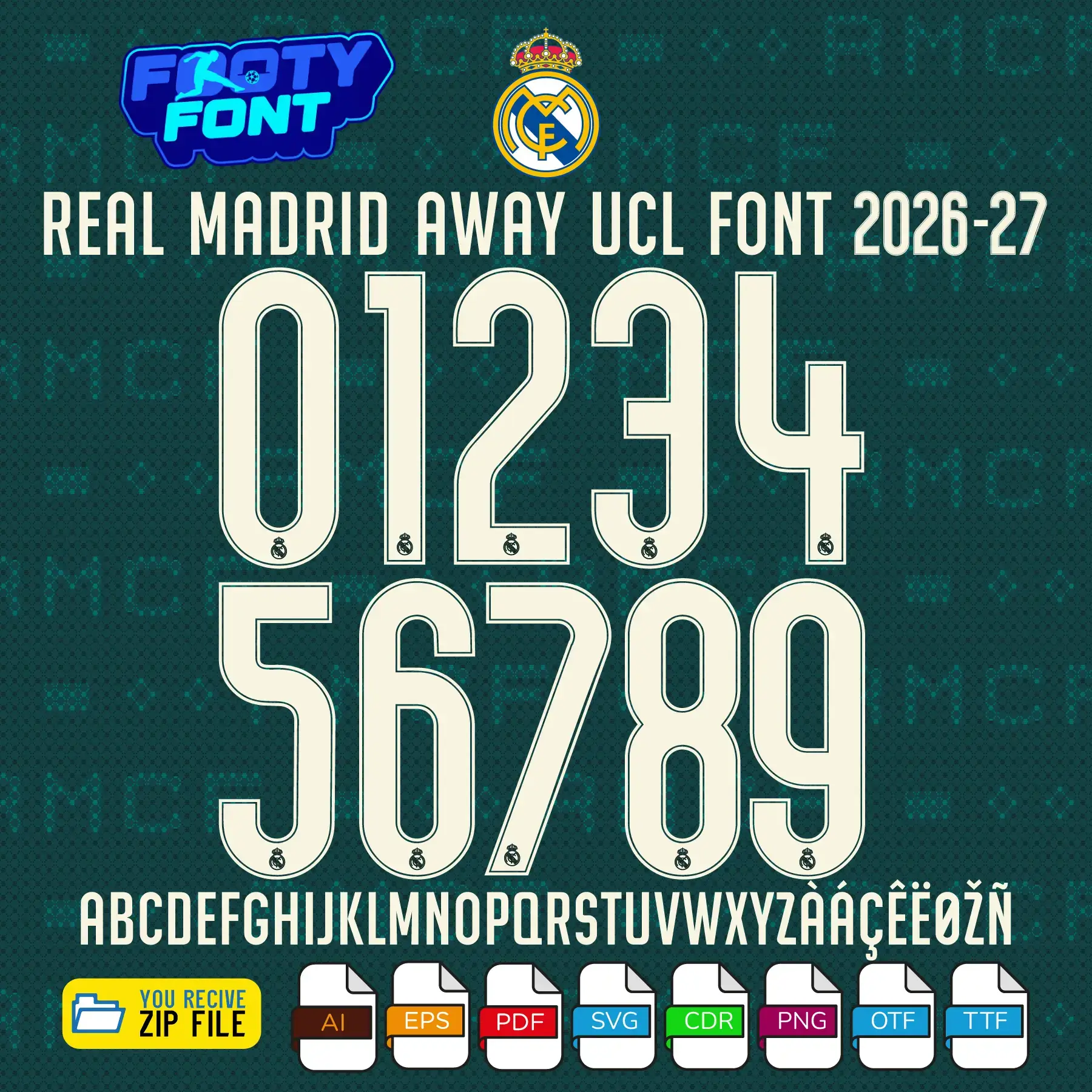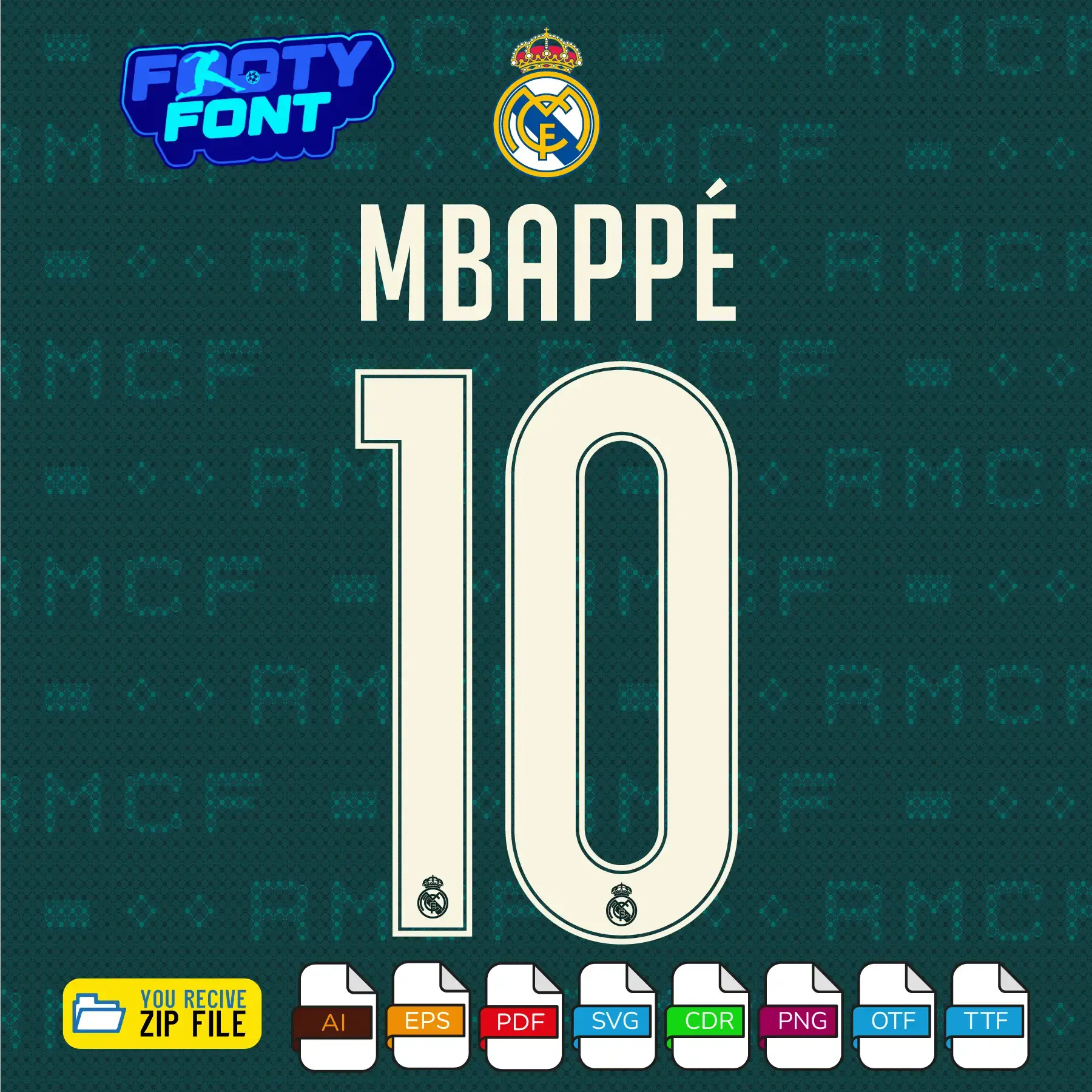
Real Madrid 2026-27 Football Font
Bring the elegance of Los Blancos to your designs with this font football, inspired by the Real Madrid 2026-27 away and European cup kit typography. This high-quality typeface is meticulously crafted to replicate the streamlined, elongated lettering worn by the Spanish giants during their UEFA Champions League away nights. It features clean, light off-white numerals with a sleek thin inline border that contrasts against the club’s “Aurora Ivy” dark green kit with the RMCF pattern.
This font captures the elite style worn by global superstars like Kylian Mbappé, Jude Bellingham, and Vinícius Júnior. Whether you are producing personalized jerseys, digital wallpapers, matchday graphics, or fan apparel, this vector font kit delivers match-grade precision.
Use this font to bring authentic Spanish football style into your projects-whether for personalized kits, merchandise mockups, posters, or digital media.